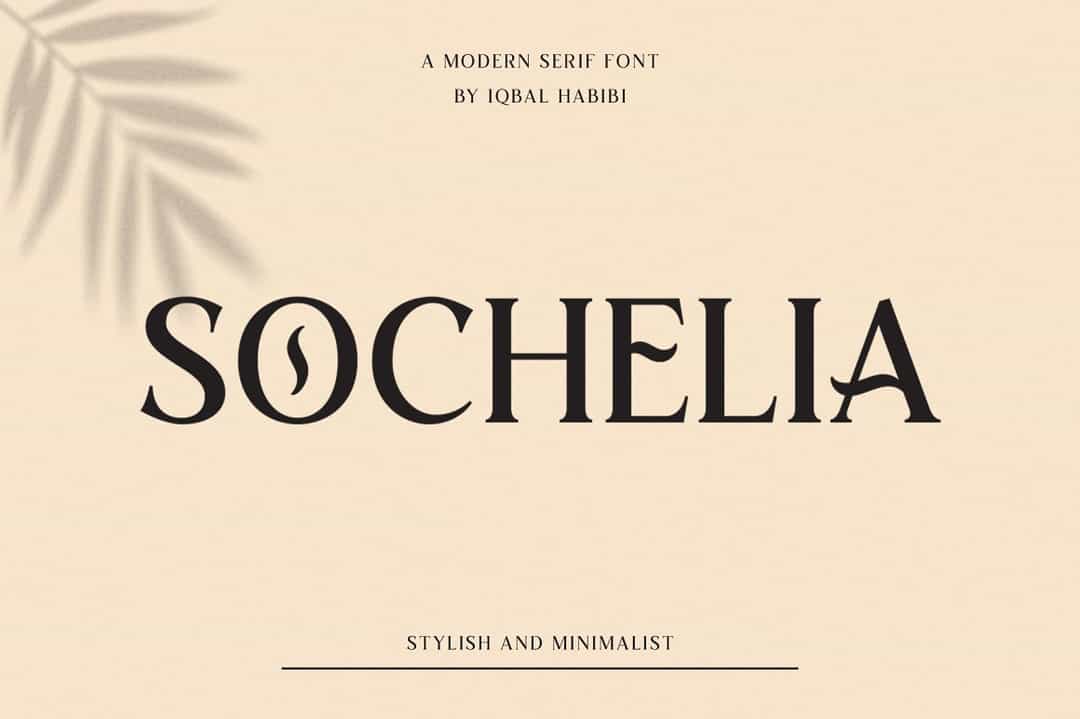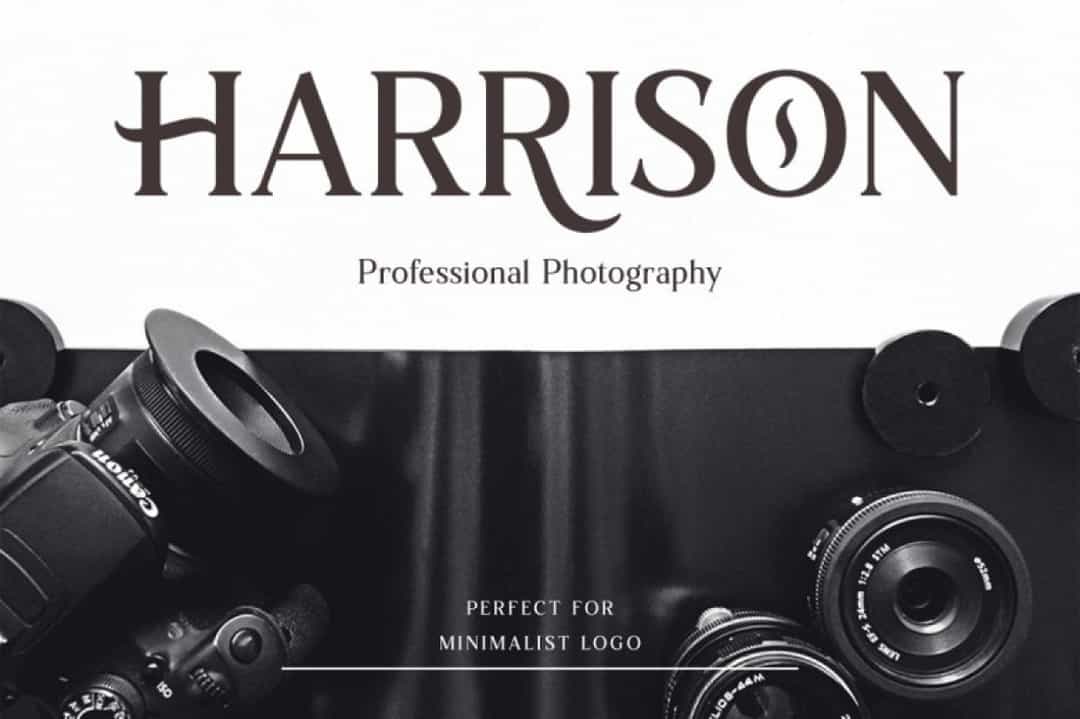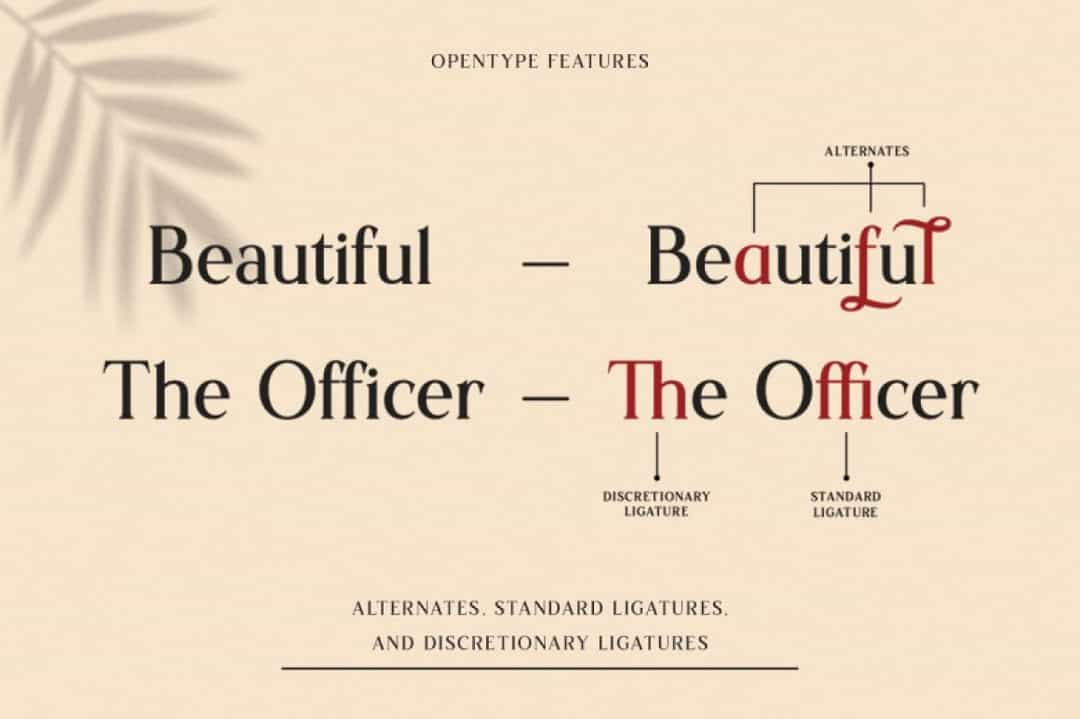
Sochelia is an elegant and modern serif typeface created for minimalist applications. With over 450 glyphs available and various ligatures and alternates available to create an original and stylish design.